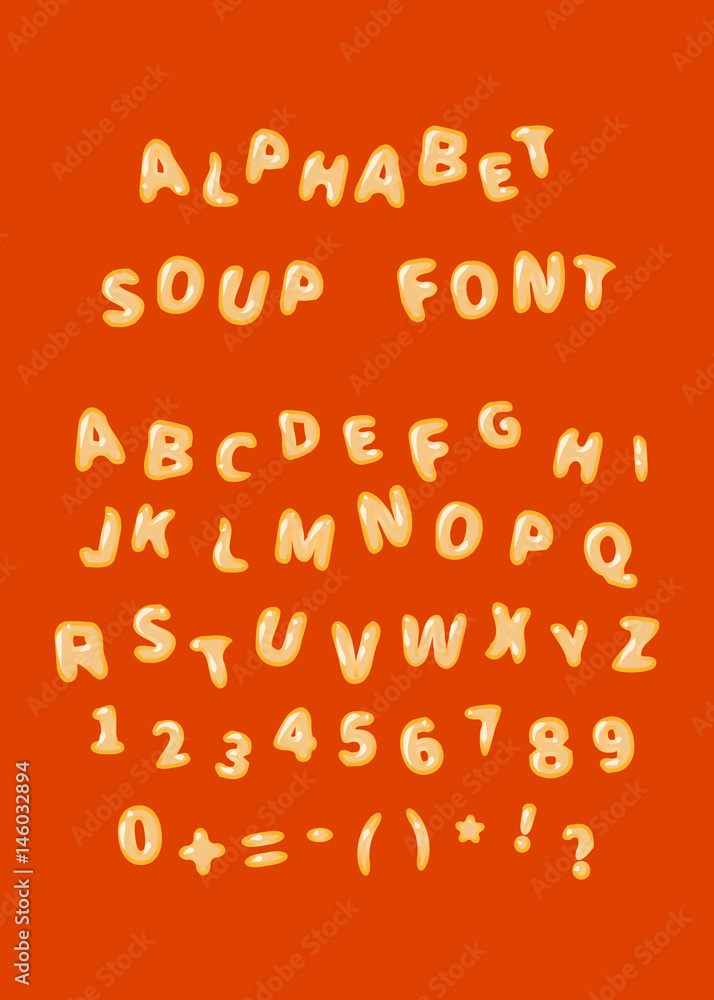
Alphabet Soup Font
Alphabet Soup Font - Visit alphabet soup to purchase additional licensing and services, including: Download and install the alphabetsoup font for free from ffonts.net. ️ this font has been. A bold, rounded font with a playful and friendly style.
A bold, rounded font with a playful and friendly style. Visit alphabet soup to purchase additional licensing and services, including: ️ this font has been. Download and install the alphabetsoup font for free from ffonts.net.
Download and install the alphabetsoup font for free from ffonts.net. Visit alphabet soup to purchase additional licensing and services, including: ️ this font has been. A bold, rounded font with a playful and friendly style.
Alphabet Soup Letters Font
Visit alphabet soup to purchase additional licensing and services, including: Download and install the alphabetsoup font for free from ffonts.net. ️ this font has been. A bold, rounded font with a playful and friendly style.
Alphabet Soup Font Download
Download and install the alphabetsoup font for free from ffonts.net. Visit alphabet soup to purchase additional licensing and services, including: A bold, rounded font with a playful and friendly style. ️ this font has been.
Create An Alphabet Soup Text Effect In Eric Renno
️ this font has been. Download and install the alphabetsoup font for free from ffonts.net. A bold, rounded font with a playful and friendly style. Visit alphabet soup to purchase additional licensing and services, including:
Alphabet Soup Font download free
A bold, rounded font with a playful and friendly style. ️ this font has been. Download and install the alphabetsoup font for free from ffonts.net. Visit alphabet soup to purchase additional licensing and services, including:
Alphabet Soup Letters Font
Visit alphabet soup to purchase additional licensing and services, including: A bold, rounded font with a playful and friendly style. Download and install the alphabetsoup font for free from ffonts.net. ️ this font has been.
Alphabet Soup Font
A bold, rounded font with a playful and friendly style. ️ this font has been. Download and install the alphabetsoup font for free from ffonts.net. Visit alphabet soup to purchase additional licensing and services, including:
Alphabet Soup Letters Font
Visit alphabet soup to purchase additional licensing and services, including: Download and install the alphabetsoup font for free from ffonts.net. ️ this font has been. A bold, rounded font with a playful and friendly style.
Alphabet Soup Letters Font
Visit alphabet soup to purchase additional licensing and services, including: A bold, rounded font with a playful and friendly style. Download and install the alphabetsoup font for free from ffonts.net. ️ this font has been.
Alphabet Soup Letters Font
Visit alphabet soup to purchase additional licensing and services, including: A bold, rounded font with a playful and friendly style. Download and install the alphabetsoup font for free from ffonts.net. ️ this font has been.
A Bold, Rounded Font With A Playful And Friendly Style.